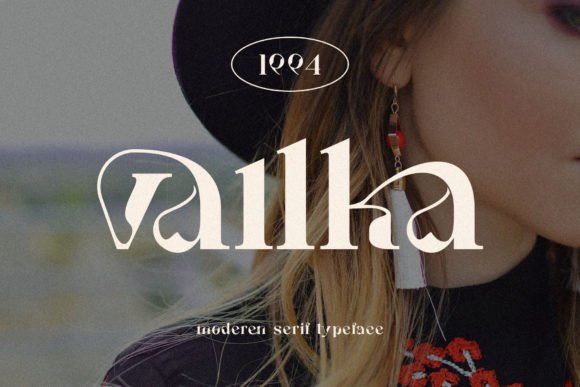
Unleash your creativity and make a statement with Vallka Font, a stunning serif font family meticulously designed by yaqublekker. This remarkable font collection is crafted with exceptional attention to detail, boasting uniquely shaped characters that exude elegance and sophistication. Its vintage charm adds a touch of timeless beauty to your designs, making it the perfect choice for creating captivating letter tattoos.
Vallka Font's versatility knows no bounds, effortlessly adapting to an array of design projects. Whether you're crafting logos, branding materials, wedding invitations, or social media graphics, this font family will elevate your work to new heights. Its graceful curves and refined details add a touch of luxury and sophistication to any project. You'll find Vallka Font to be the perfect companion for projects that demand a classic, timeless look.
Immerse yourself in the world of Vallka Font and discover a treasure trove of possibilities. This font family is meticulously crafted to provide you with endless opportunities to express yourself creatively. Whether you're a seasoned designer or just starting your creative journey, Vallka Font will empower you to create stunning designs that capture attention and leave a lasting impression.
With Vallka Font, the possibilities are endless. Unlock your creativity and let your imagination run wild as you explore the endless design possibilities this font family offers. Transform your artistic vision into reality and elevate your projects to new heights of excellence.
Experience the allure of Vallka Font today and embark on a creative journey like never before.